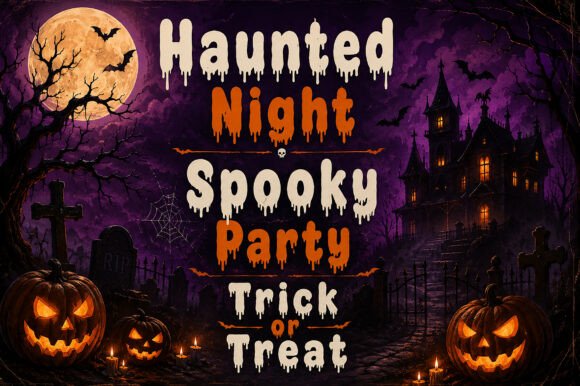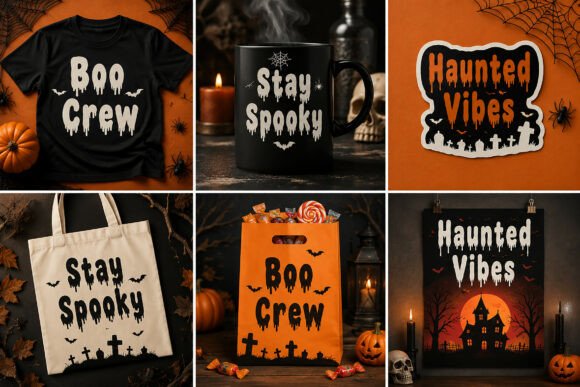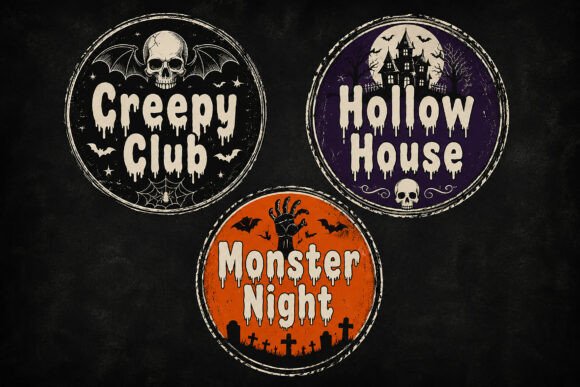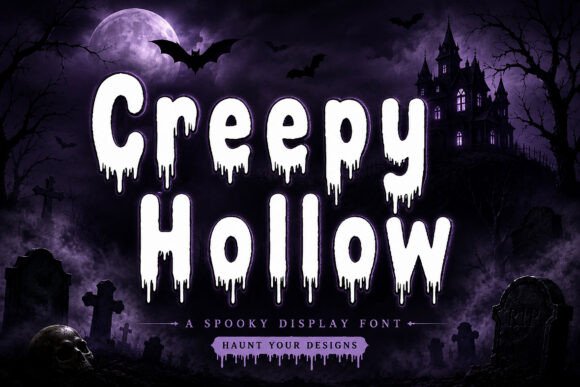
Unleash the Spook: Exploring the Creepy Hollow Font
As the spookiest time of the year approaches, designers and crafters are on the lookout for the perfect font to add a dash of eeriness to their creations. Look no further than the Creepy Hollow Font, a spooky horror display font that embodies the essence of haunted houses, Halloween nights, ghost stories, and vintage horror posters.
Inspiration from the Dark Side
Creepy Hollow is more than just a font – it’s an experience. Inspired by the creepy and unknown, this font is designed to evoke the feeling of walking through a haunted mansion on a dark and stormy night. Its irregular hand-drawn letterforms, eerie curves, and creepy atmosphere come together to create a sense of foreboding and unease, perfect for designers and crafters looking to add a touch of horror to their work.
Whether you’re designing Halloween party invitations, horror movie posters, spooky branding, haunted attraction flyers, social media graphics, stickers, t-shirts, packaging, or Cricut projects, Creepy Hollow is the ideal choice. This versatile font can be used for both professional and personal creative projects that require a spooky, fun, and memorable look.
Key Features of Creepy Hollow Font
- Irregular hand-drawn letterforms: Each letter is carefully crafted to create a unique and eerie feel.
- Eerie curves: The font’s curves are designed to send shivers down your spine.
- Creepy atmosphere: The overall design of the font is meant to evoke a sense of foreboding and unease.
- Bold and playful horror style: Creepy Hollow is perfect for designers and crafters looking for a font that’s both spooky and fun.
Why Choose Creepy Hollow Font?
So, why choose Creepy Hollow Font over other horror fonts? Here are just a few reasons:
- Unique and eye-catching: Creepy Hollow is sure to grab attention and leave a lasting impression.
- Versatile: The font can be used for a wide range of projects, from Halloween party invitations to horror movie posters.
- Easy to use: Creepy Hollow is a display font that’s easy to use, even for those with limited design experience.
- Perfect for the spooky season: The font is specifically designed for the Halloween season, making it a great addition to your design arsenal.
Tips for Using Creepy Hollow Font
Here are a few tips for using Creepy Hollow Font in your designs:
- Pair with other horror fonts: Experiment with pairing Creepy Hollow with other horror fonts to create a unique and eye-catching look.
- Use in combination with images: The font looks great when paired with spooky images, such as haunted houses or creepy creatures.
- Experiment with colors: Try using Creepy Hollow with different colors, such as blood red or eerie green, to create a bold and eye-catching design.
If you’re looking for a font that will add a touch of horror to your designs, look no further than Creepy Hollow Font. With its irregular hand-drawn letterforms, eerie curves, and creepy atmosphere, this font is perfect for designers and crafters looking to create eye-catching designs with a dark and mysterious feel. So, unleash the spook and get creative with Creepy Hollow Font!